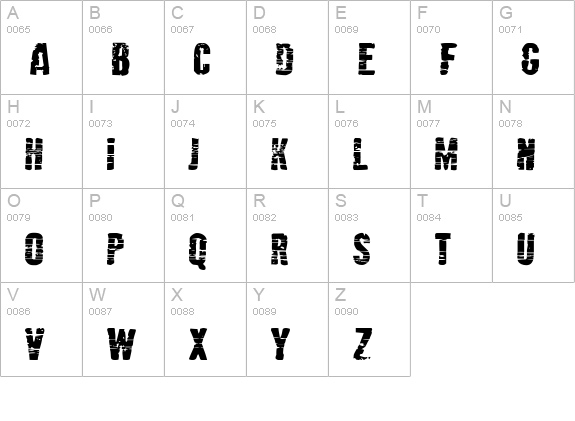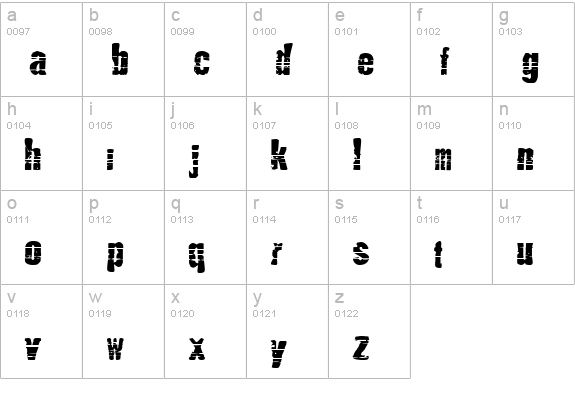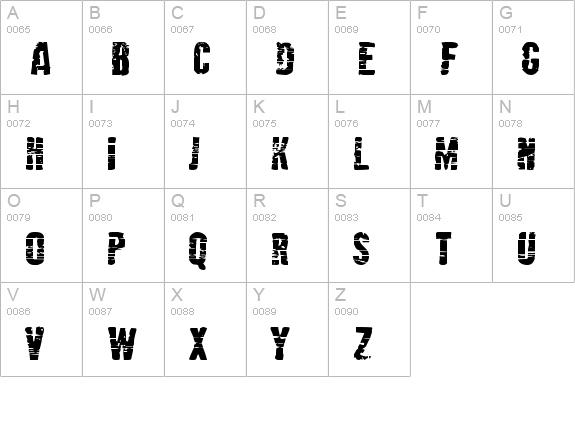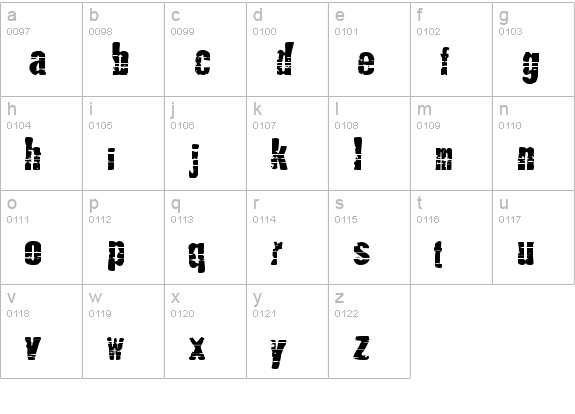
MutantE Font Details
Introducing MutantE font, a unique and captivating typeface that will surely make your designs stand out from the crowd. With its bold and futuristic appearance, MutantE is perfect for a wide range of projects, from posters to logos to social media graphics. This versatile font features sharp edges and a modern aesthetic that will add a touch of sophistication to any design. The best part? MutantE font is completely free to download at FontsMarket.com. That's right, you can get your hands on this amazing font without spending a dime. Whether you're a seasoned designer looking to spice up your projects or a beginner just starting out, MutantE is the perfect choice for adding a touch of creativity to your work. Don't miss out on this fantastic opportunity to elevate your designs with the eye-catching MutantE font. Download it for free today and unleash your creativity like never before.